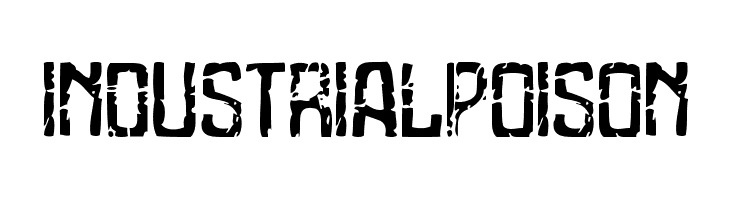
( Fonts by dustBUST - Andreas Nylin )
A bold, geometric, italic font with an industrial and modern flair.
A bold, distressed font with a grunge, industrial aesthetic.
( Vladimir Nikolic - www.coroflot.com/vladimirnikolic )
A bold, italicized font with a distressed, vintage texture.
A bold, distressed font with a vintage industrial style.
( Vladimir Nikolic - www.coroflot.com/vladimirnikolic )
A bold, textured font with a vintage, industrial style.
A bold, distressed font with a vintage, playful style.
( Fonts by BlackFridayFont FMF )
Distressed, bold display font with an industrial, rugged style.